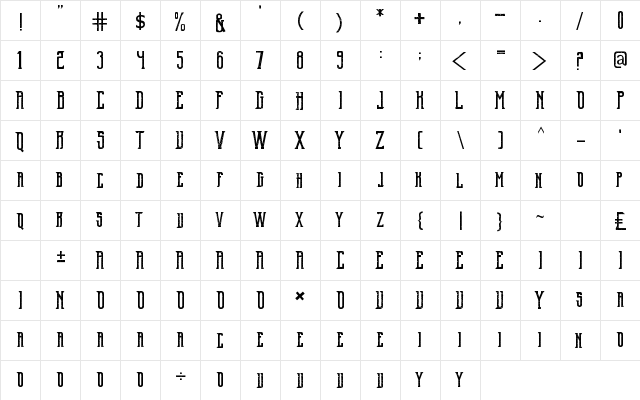
Old Excalibur Grunge Regular
| Foundry | Edric Studio |
| Designer | Aghnia Nurul Yasmine |
Design Context for Old Excalibur Grunge Typeface
Old Excalibur Grunge embraces imperfection — its rough, textured character adds raw authenticity to designs that want to feel lived-in and unconventional.
Suited to punk-influenced zines, underground music branding, streetwear, and raw, anti-corporate design.
Pro Tip: Pair Old Excalibur Grunge with intentionally raw or lo-fi design elements. Fighting against it with overly polished surroundings will undermine its personality.